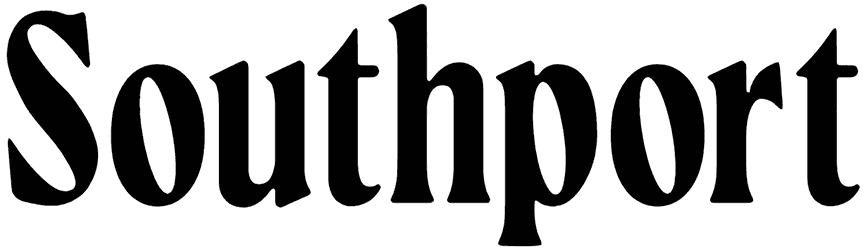
Southport Font
Imagine seeing a book displayed on a shelf in a bookstore, the title written as mysteriously as Southport looks, and right then, all you can think about is what story waits for you among those lines. You see, not every newspaper font can be that engaging, but luckily, Southport is.
Just make sure the theme of the story matches the formal style of this font, i.e., when you’re designing the book cover of classic novels, biographies, or something like that.
Southport is an elegant, hand-crafted serif font with a warm and familiar feel.
This font is a great fit for high-end branding, logo designs, magazines, product packaging & invitations.